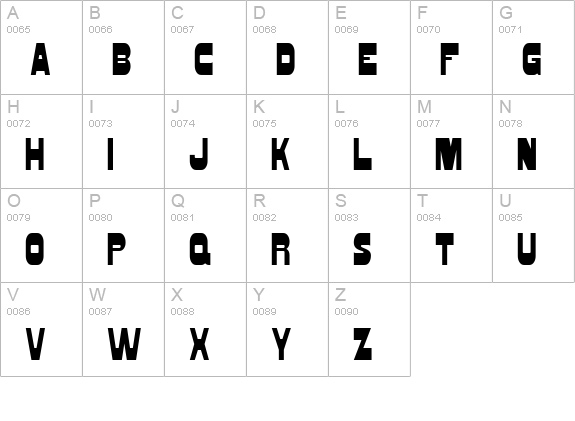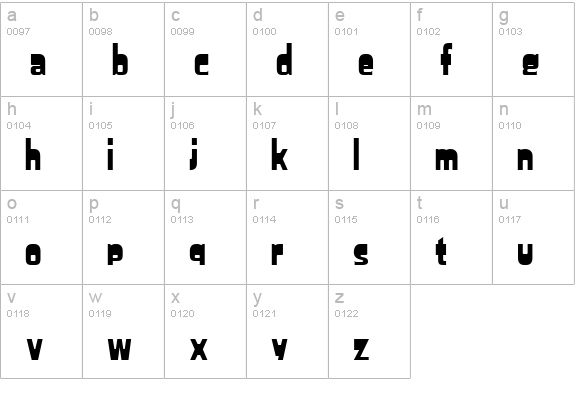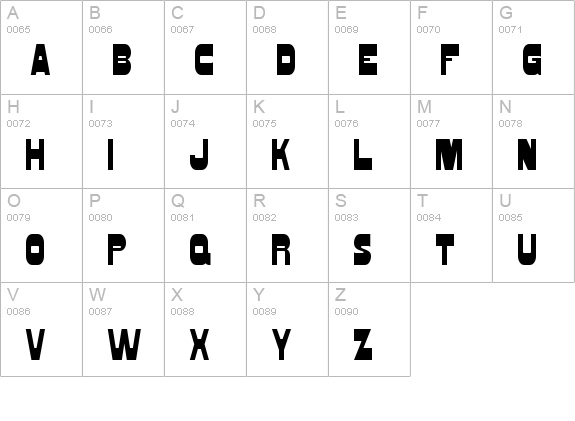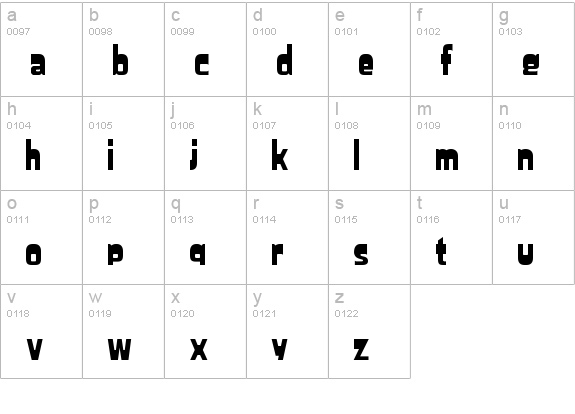
Blacktop font is a sleek and modern typeface that exudes a sense of sophistication and style. Its sharp edges and bold lines make a strong visual impact, perfect for headlines, logos, and branding projects. The clean and geometric design of Blacktop font adds a touch of contemporary flair to any design. What makes Blacktop font even more appealing is that it is completely free to download at FontsMarket.com. This means that you can effortlessly add this striking font to your collection without any cost. Whether you are a designer looking to elevate your projects or simply someone who appreciates high-quality fonts, Blacktop font is a fantastic choice that won't break the bank. Download it today and see how it can enhance your creative endeavors.